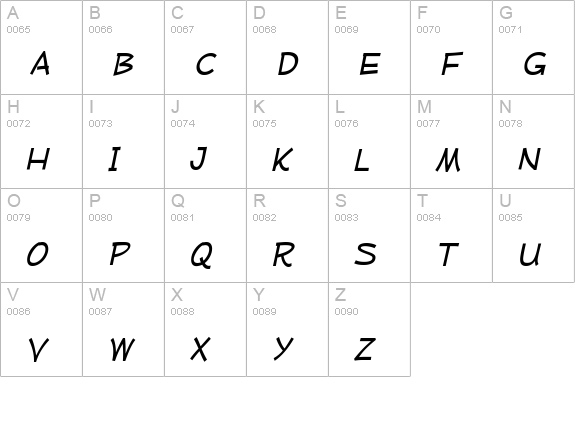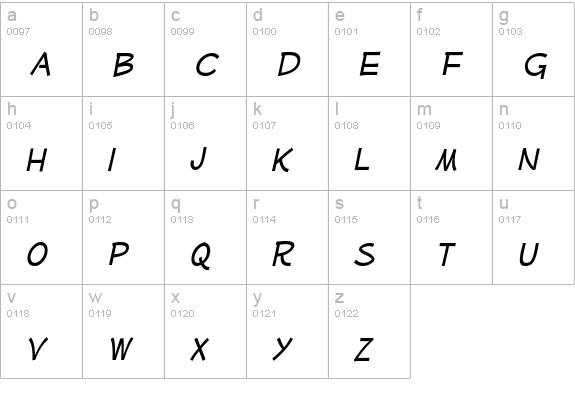
Mufferaw Italic Font Details
Mufferaw Italic is a distinctive, italic variant in the Mufferaw typeface family \xE2\x80\x94 well suited to design and typography projects.
Mufferaw Italic font is a modern and stylish typeface that exudes elegance and sophistication. Its sleek and slanted design adds a touch of flair to any project, making it perfect for branding, advertising, and creative designs. The italicized characters give off a sense of movement and energy, making your text come alive on the page. What's even better is that Mufferaw Italic font is available for free download at FontsMarket.com. This means you can easily access this high-quality font without any cost, allowing you to elevate your designs without breaking the bank. Don't miss out on this fantastic opportunity to enhance your projects with the beautiful Mufferaw Italic font - download it for free today at FontsMarket.com!